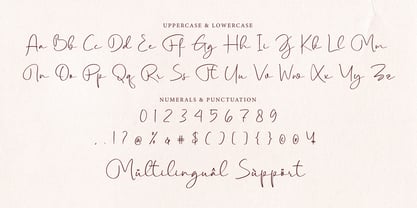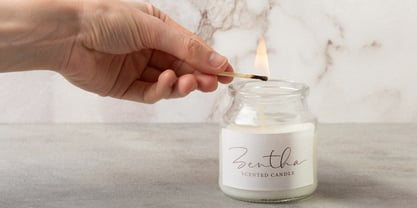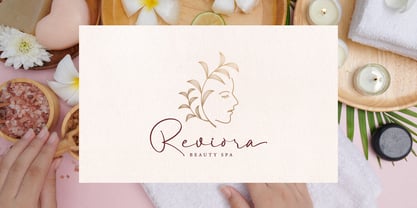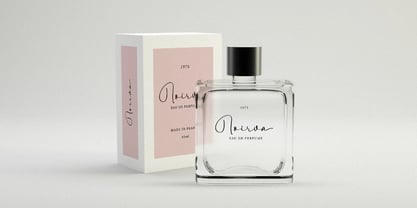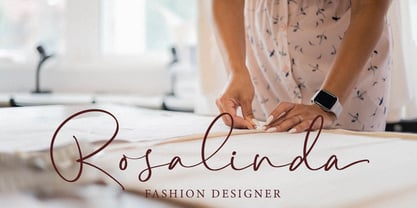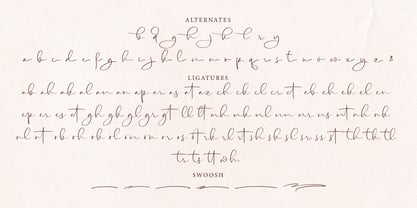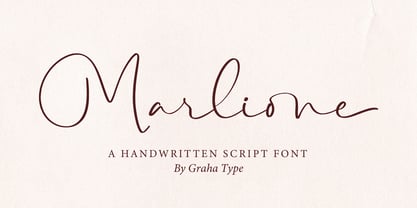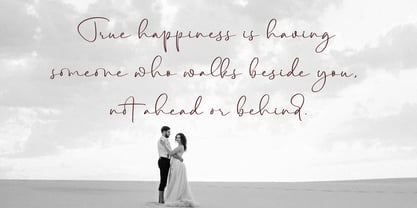
Marlione
by Graha Type
The Marlione Font Family was designed by Toni Nugraha and published by Graha Type. Marlione contains 1 styles.
Marlione is a stylish handwritten script font that combines smooth, elegant strokes with a touch of modern sophistication. Designed to exude charm and versatility, Marlione is perfect for wedding invitations, logos, branding, and a variety of creative projects. Its flowing lines and polished aesthetic make it ideal for creating designs that feel personal yet professional. Whether you're crafting a romantic wedding suite or a sleek brand identity, Marlione adds a timeless and contemporary flair to your work.
Standard Glyphs
Alternates and Ligatures